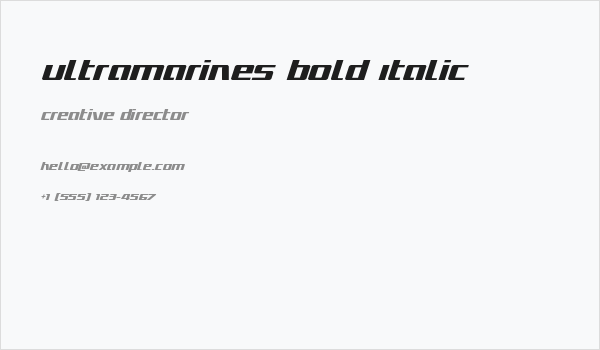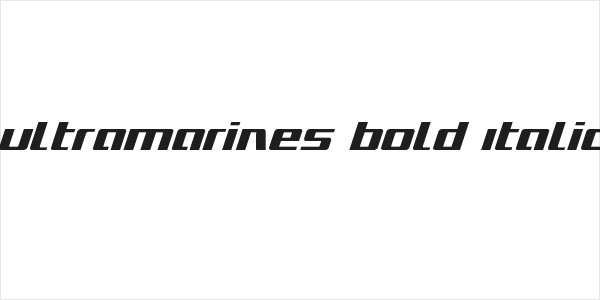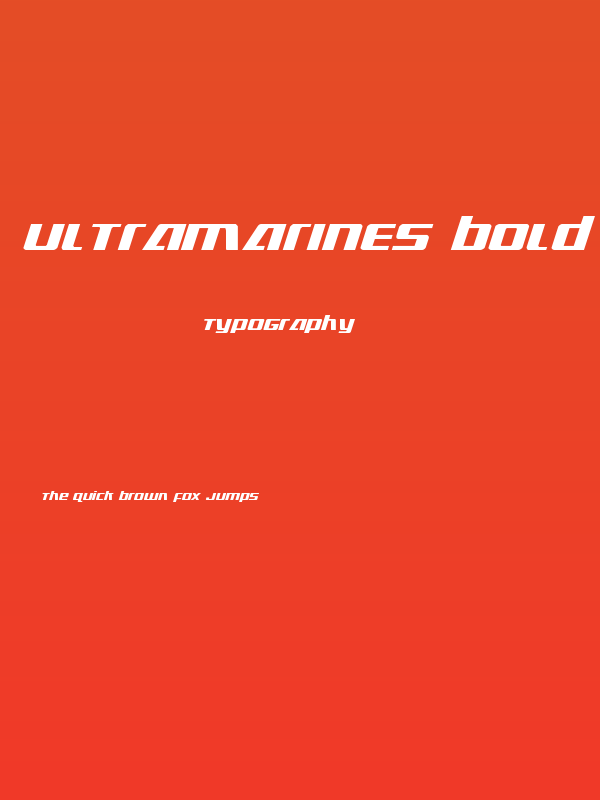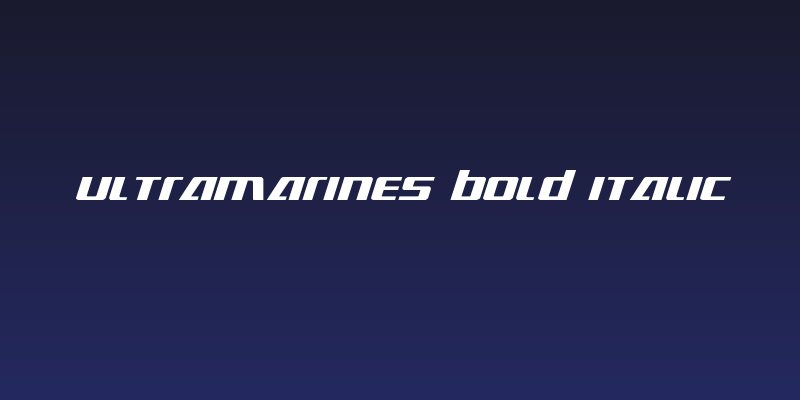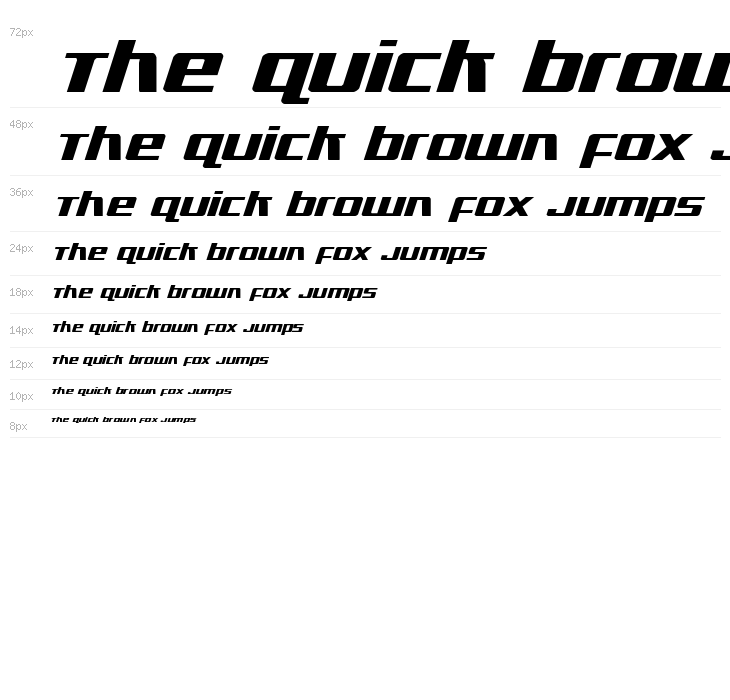
Ultramarines Bold Italic Font
Ultramarines Bold Italic Description
This font exhibits a bold and italicized style with a futuristic and dynamic appearance. The characters are angular and slanted, giving a sense of motion and speed. The uppercase and lowercase letters maintain a consistent geometric form, with sharp edges and a uniform stroke width. The numbers and special characters follow the same design principles, ensuring a cohesive look across all glyphs. This font's boldness and slant make it stand out, ideal for projects that require a modern and energetic feel.
| Proposed Projects | Ideal for sports branding, technology logos, video game titles, and dynamic advertising campaigns. |